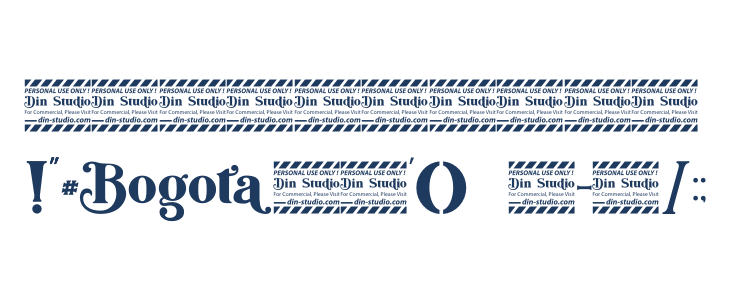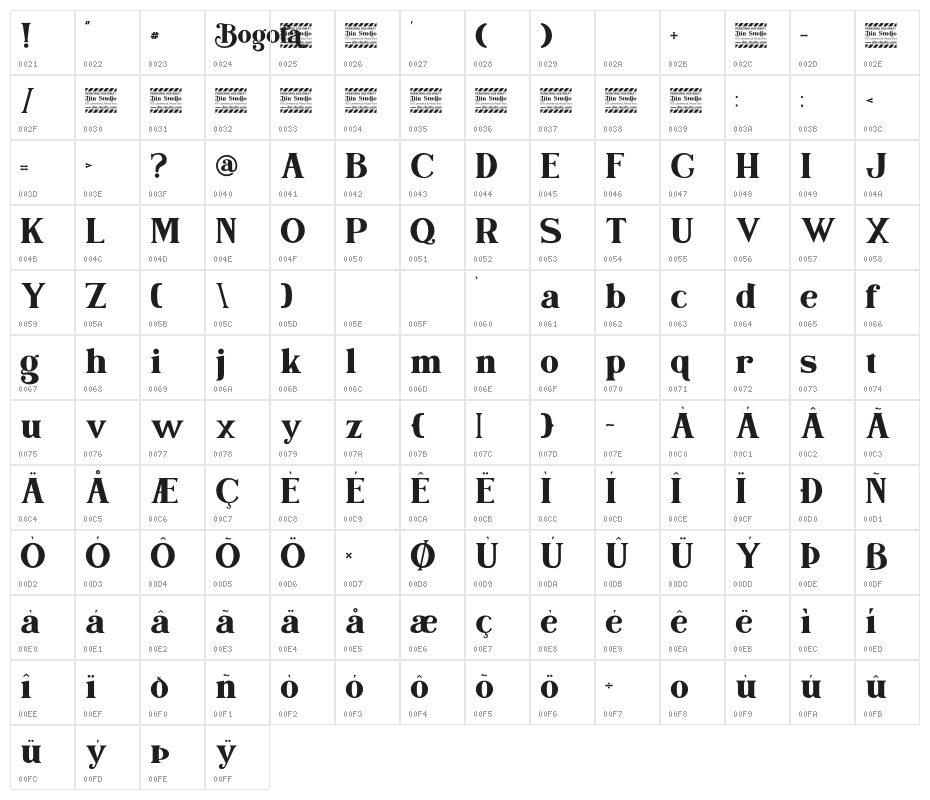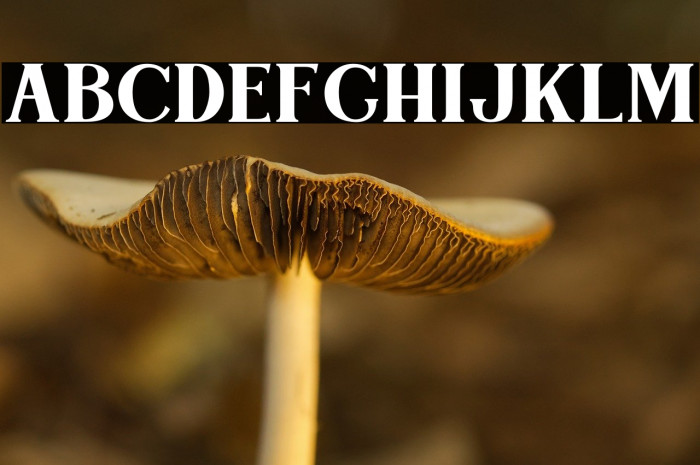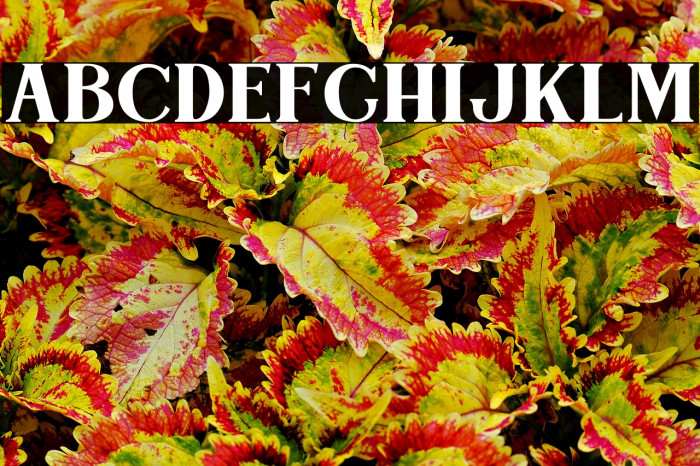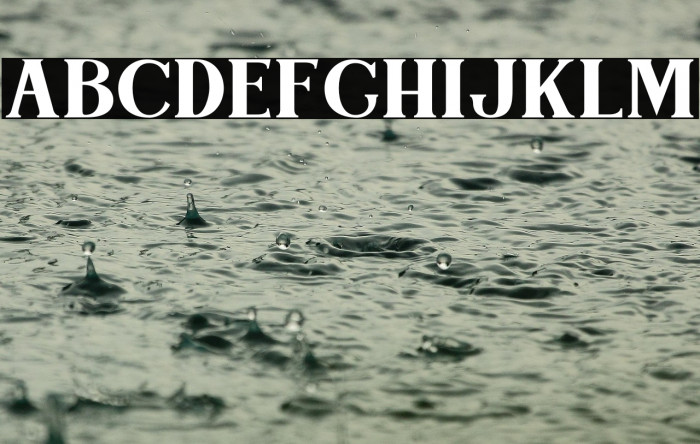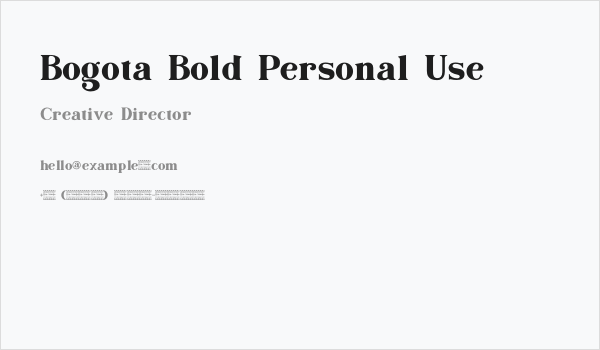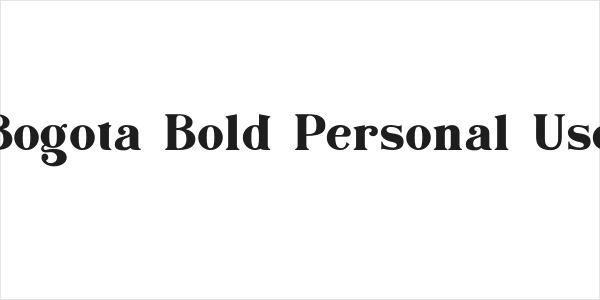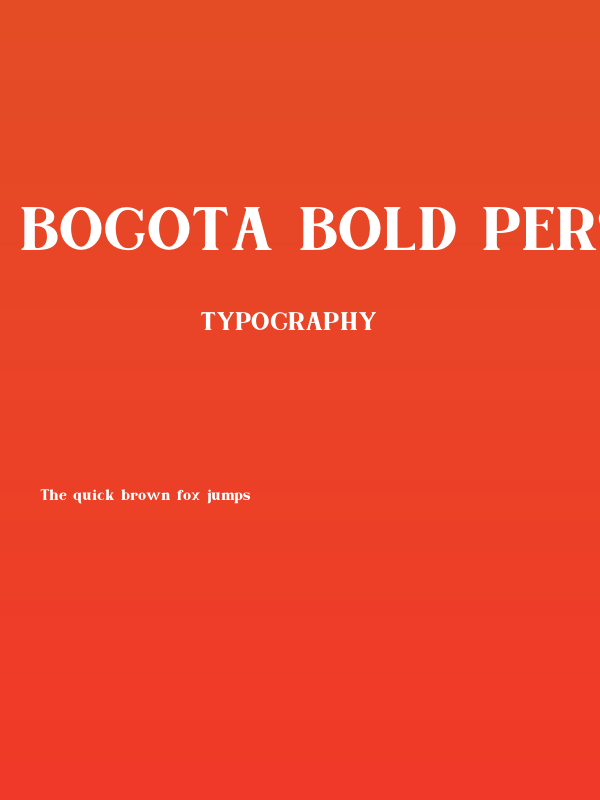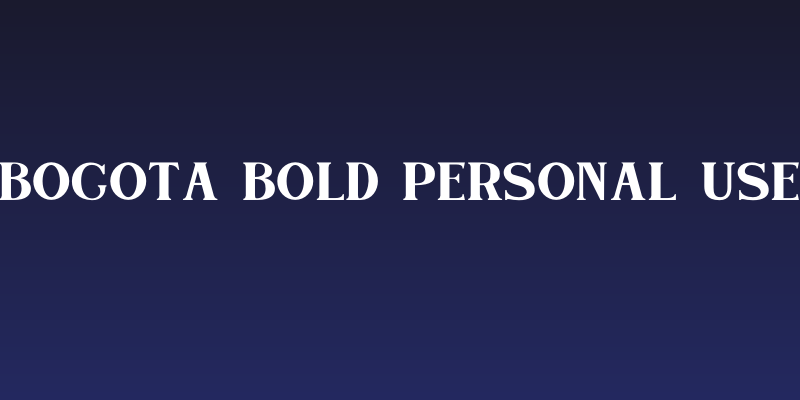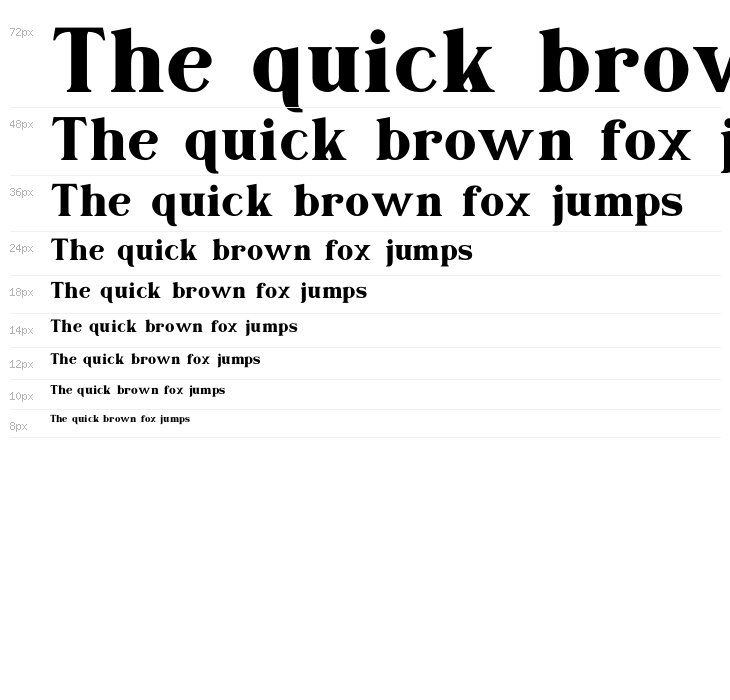
This font features a bold and striking serif style with strong, thick strokes that give it a commanding presence. The uppercase letters are robust and well-defined, while the lowercase letters maintain a consistent weight, providing a harmonious balance. The serifs are pronounced, adding a classic touch to the overall modern design. The numbers are equally bold, ensuring readability and impact. Special characters are designed with the same attention to detail, making them stand out. The font's overall appearance is both elegant and powerful, suitable for making a statement.
| Proposed Projects | Ideal for headlines, posters, branding, and editorial design where a strong and impactful font is needed. |